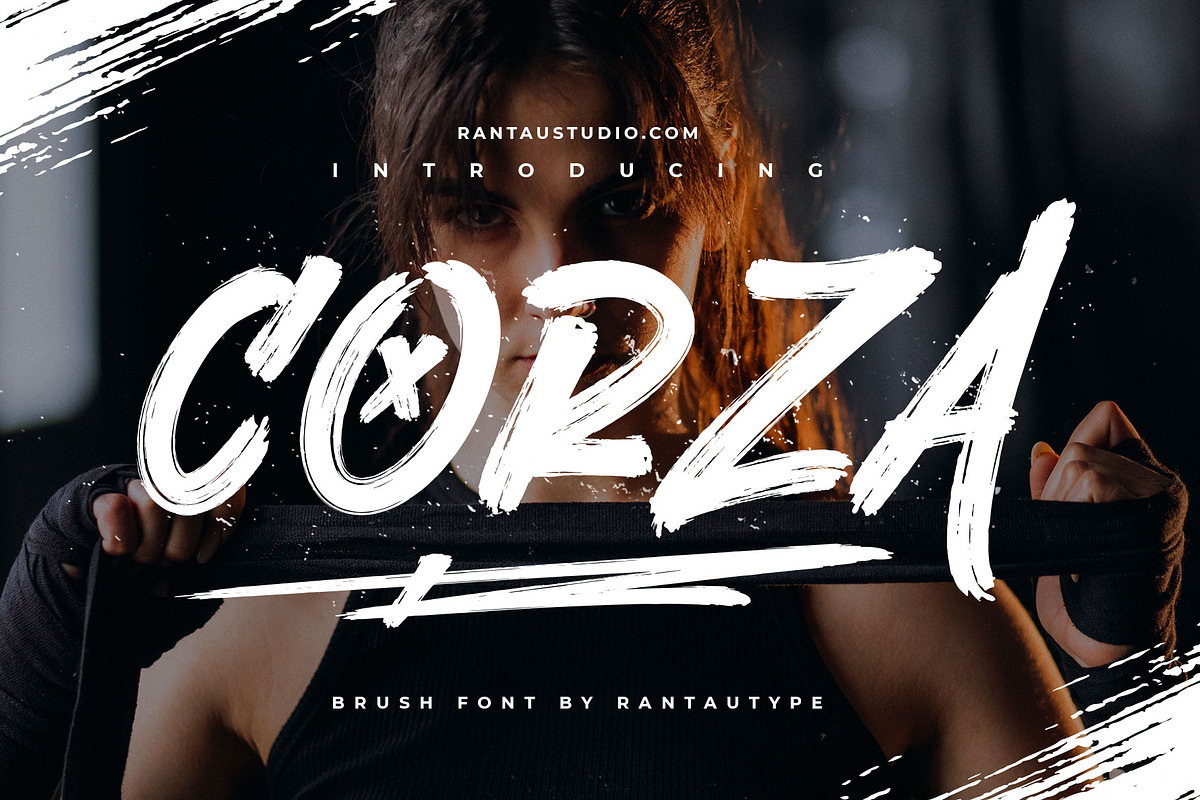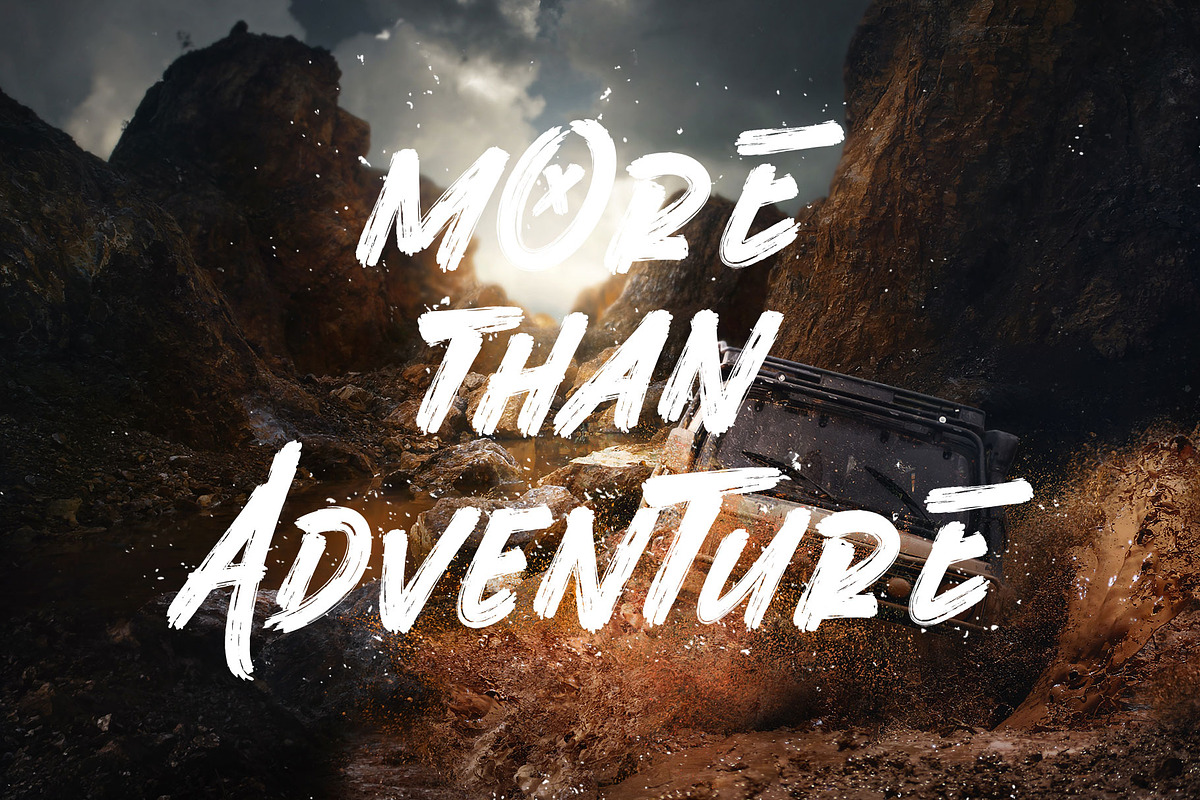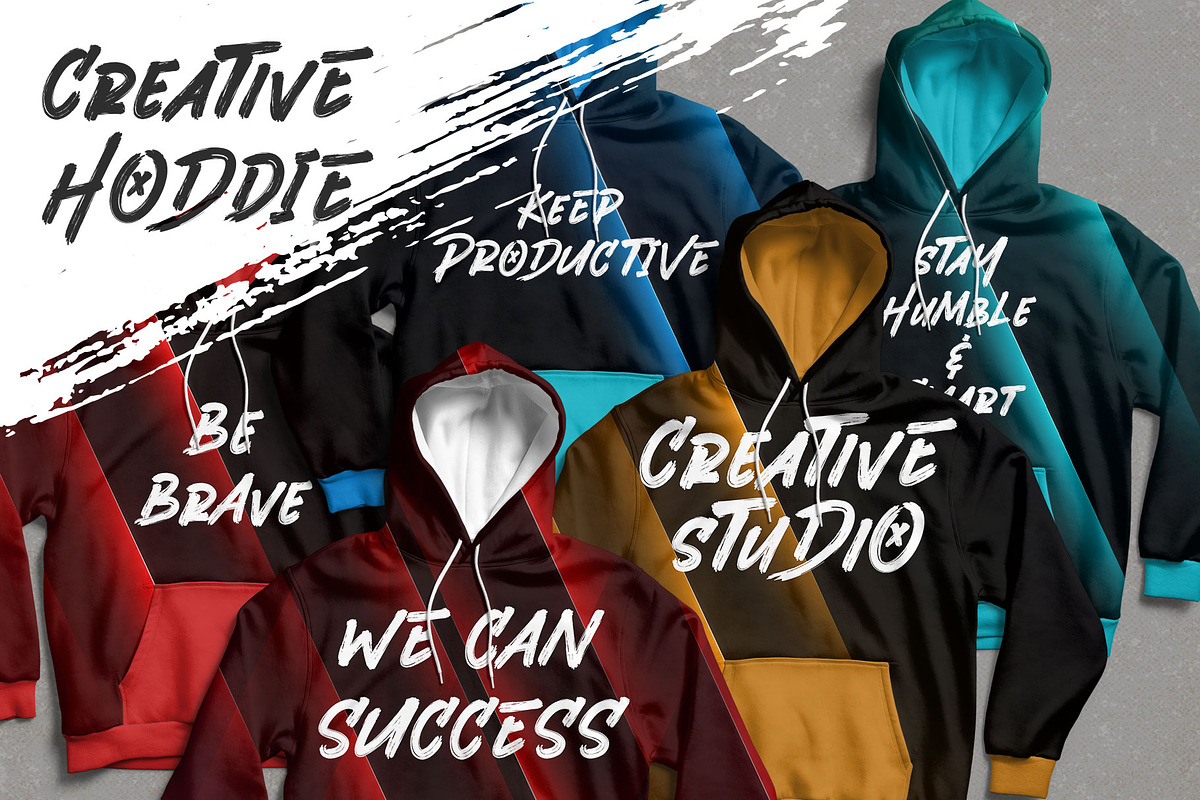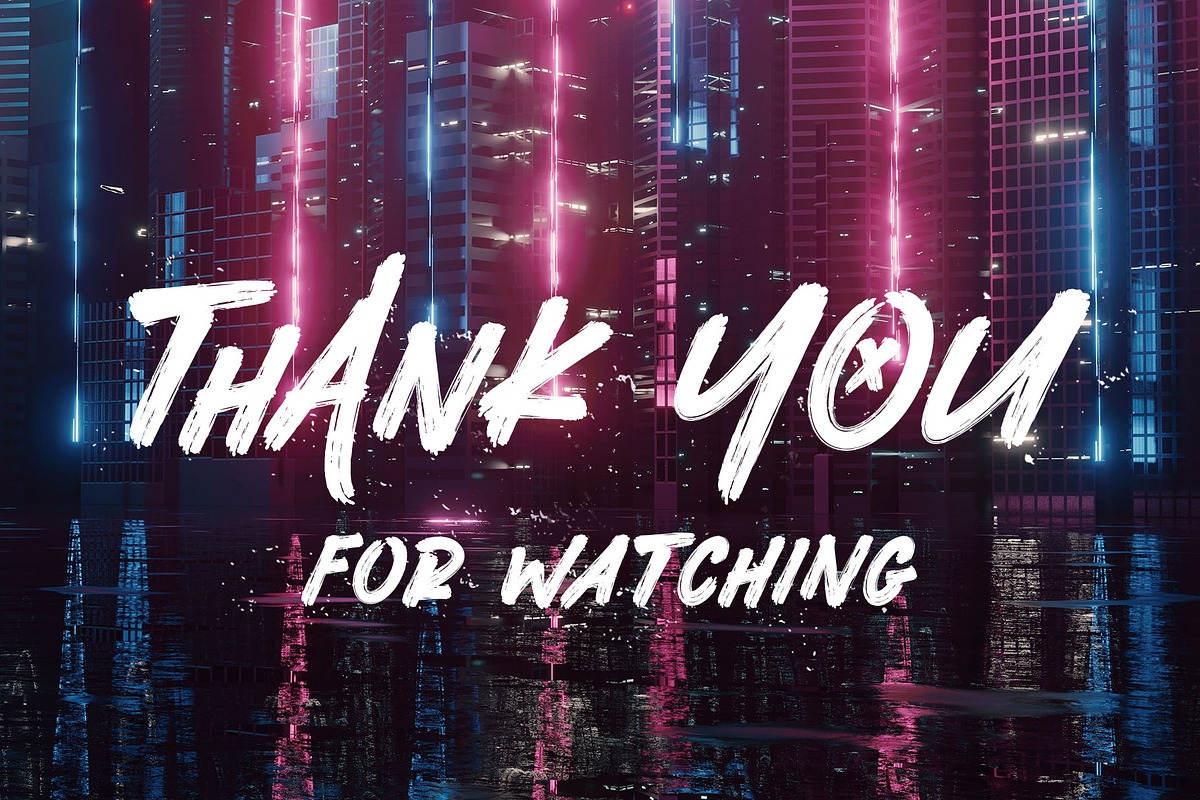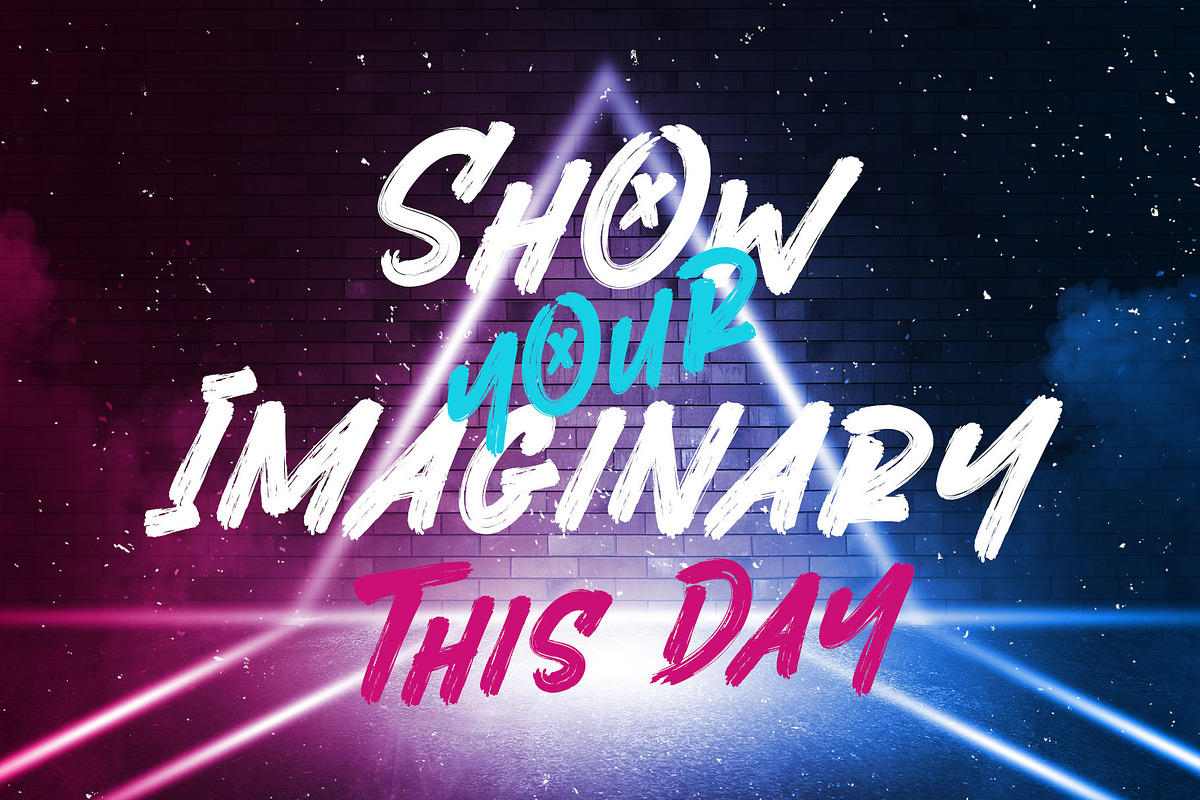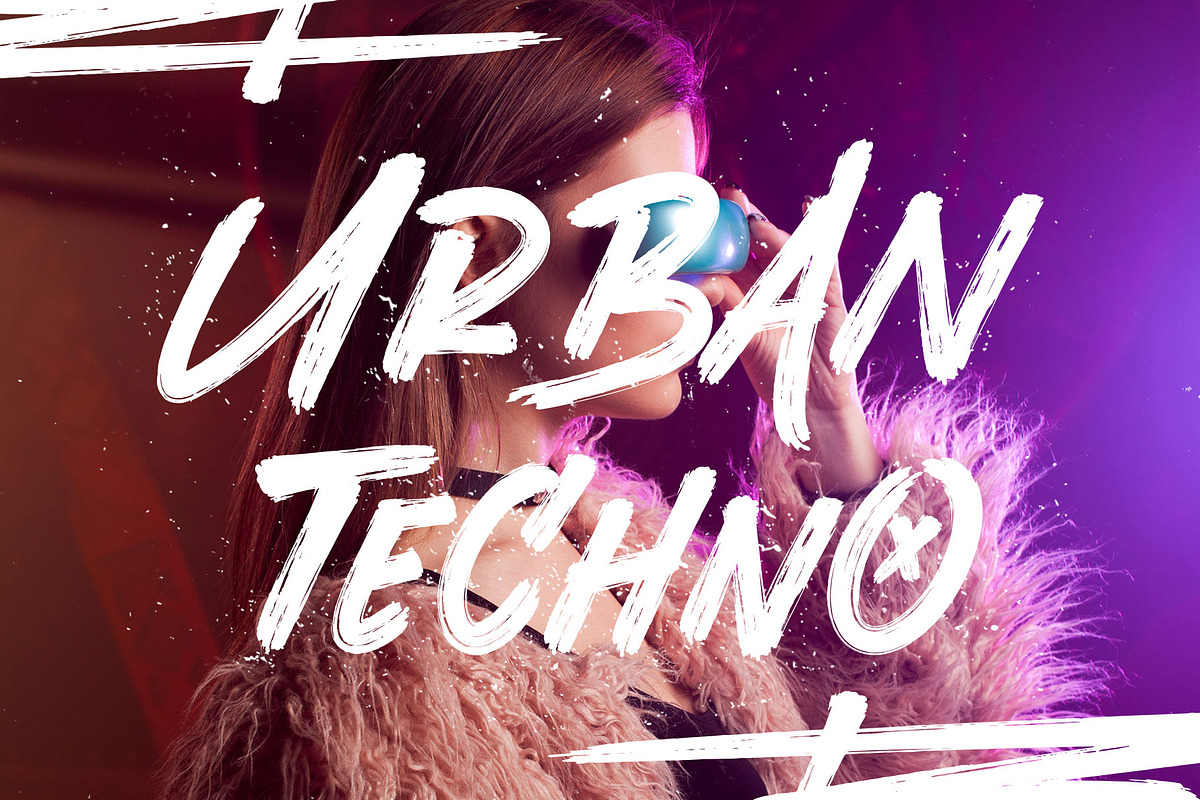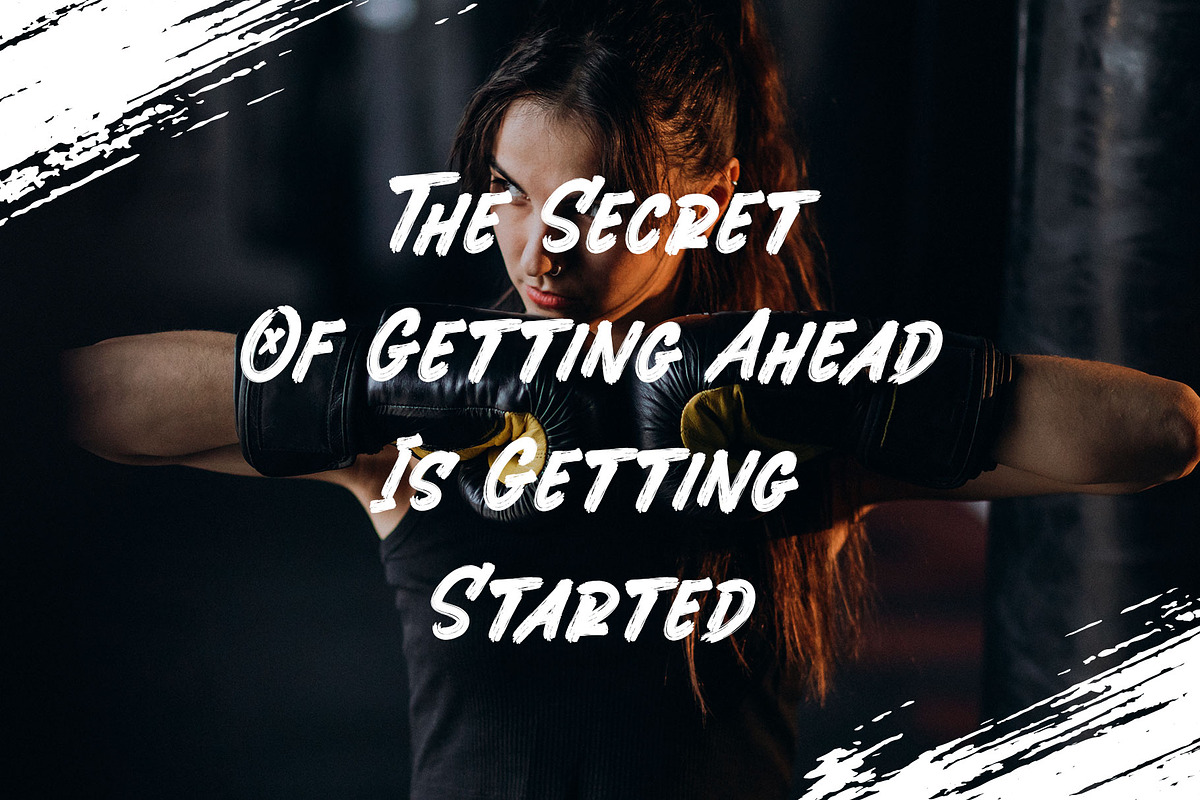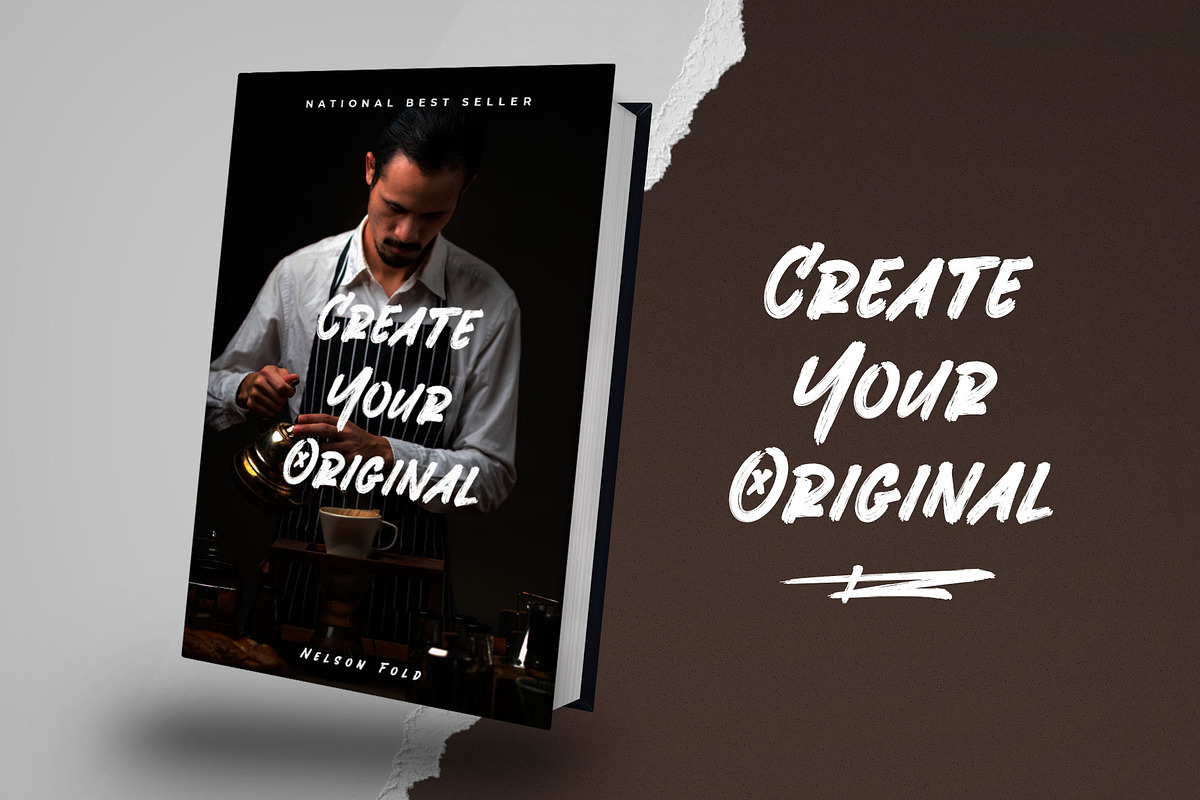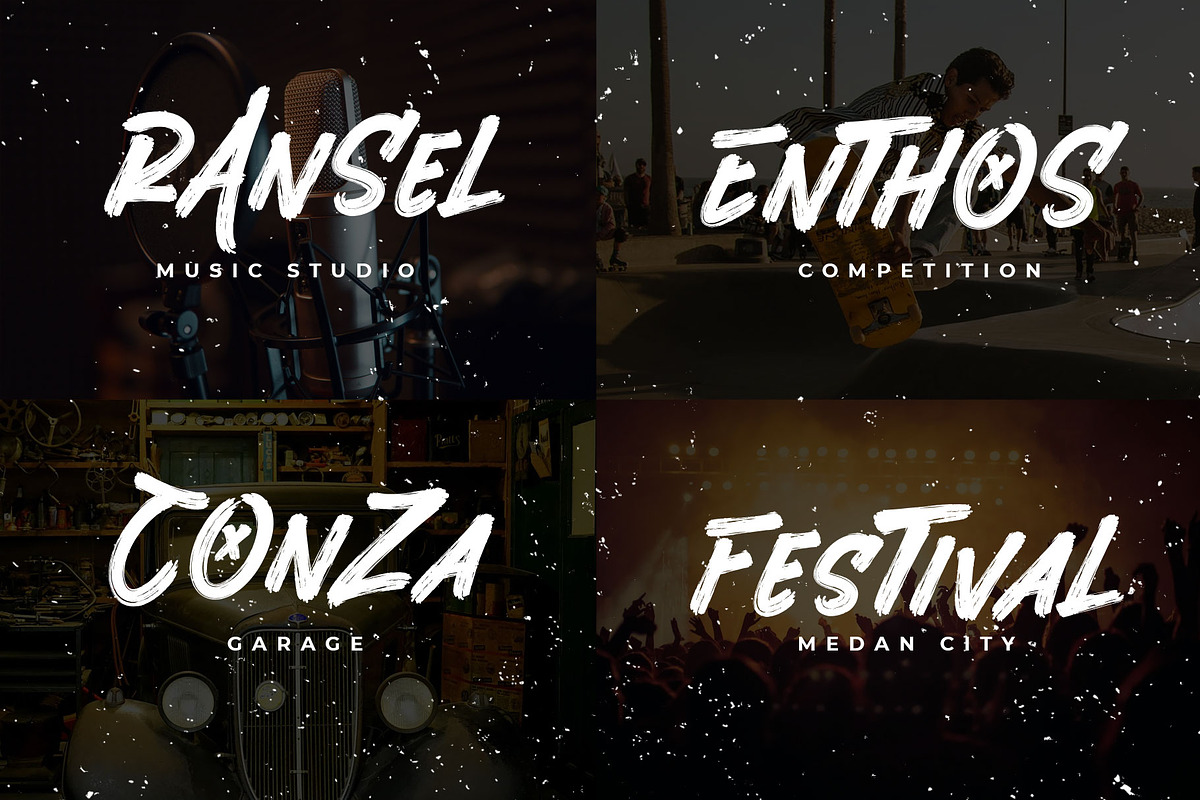
Hi Ladies and Gentleman ! Proudly present brush font “Corza”. This font is authentic hand brush imperfections. It has a perfectly paired complimentary marker font and a super handy set of bonus Swash and if you bored with the uppercase i already make alternate for the uppercase. We keep this font looks modern, readable, stylish, strong, cool, bold, catchy and easy to use. Corza is the great choice for watermark on photography, logo design, quotes, album cover, magazine,tshirt and many other design project. Corza here to make your work to high level!!!
- Standar character A-Z and a-z
- Numberial
- Functional
- Alternate Uppercase